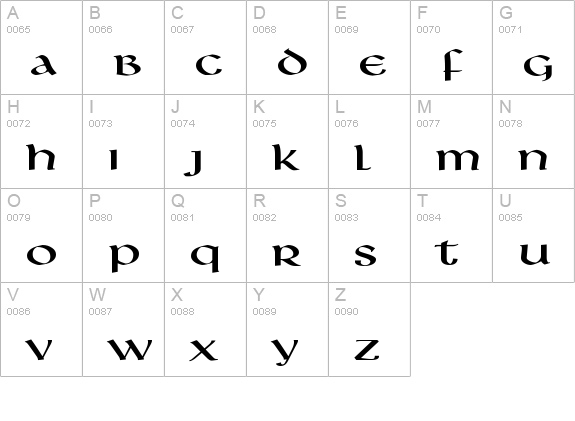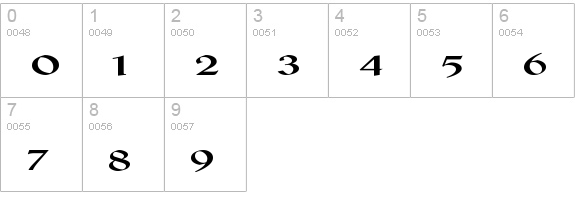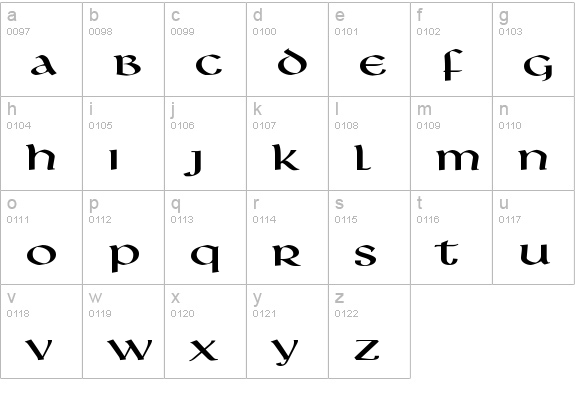
Leo Extended Normal is the standard, neutral, extended-width variant in the Leo typeface family \xE2\x80\x94 well suited to general body text, paragraphs, and standard typographic work.
Leo Extended Normal is a versatile and modern font that exudes a sense of elegance and professionalism. With its clean lines and well-balanced proportions, Leo Extended Normal is perfect for a wide range of design projects, including branding, advertising, and editorial layouts. This typeface offers a unique blend of classic and contemporary elements, making it suitable for both traditional and cutting-edge designs. The letters are carefully crafted to ensure legibility and readability, even at small sizes, while still maintaining a distinct personality. Leo Extended Normal is available in a variety of weights, allowing designers to create eye-catching headlines, elegant body text, or stylish logos. The extended character set includes a range of special characters, punctuation marks, and symbols, ensuring that you have everything you need to bring your creative vision to life. What's more, Leo Extended Normal is free to download at FontsMarket.com. This means that you can start using this beautiful font in your projects without any cost. Whether you're a professional designer or a hobbyist, Leo Extended Normal is a valuable addition to your font library. Experience the versatility and beauty of Leo Extended Normal today, and unleash your creativity with this freely available font from FontsMarket.com.